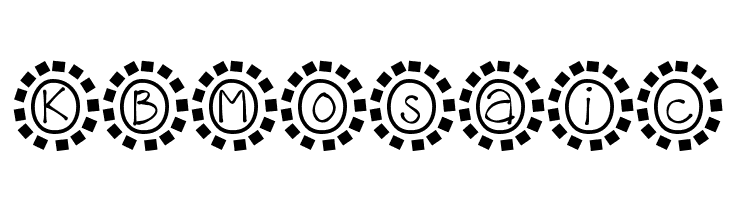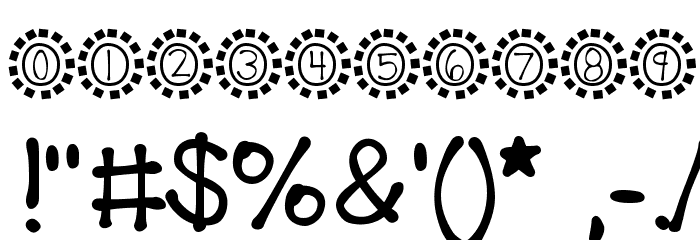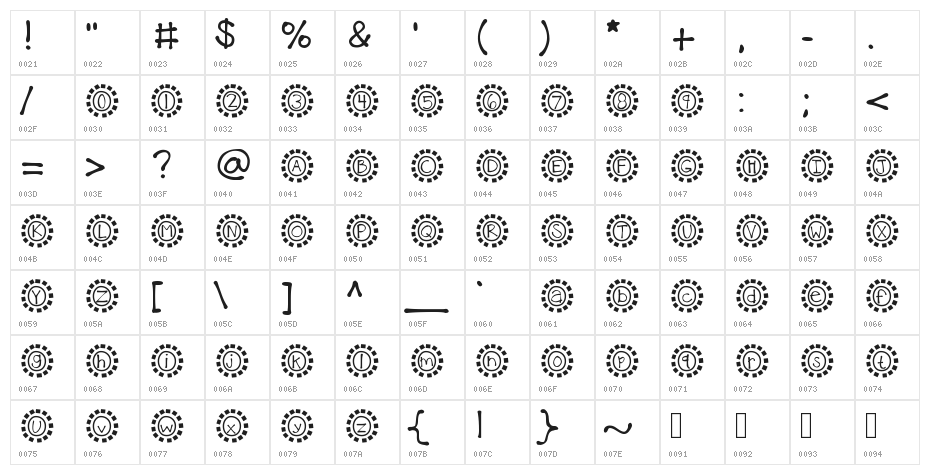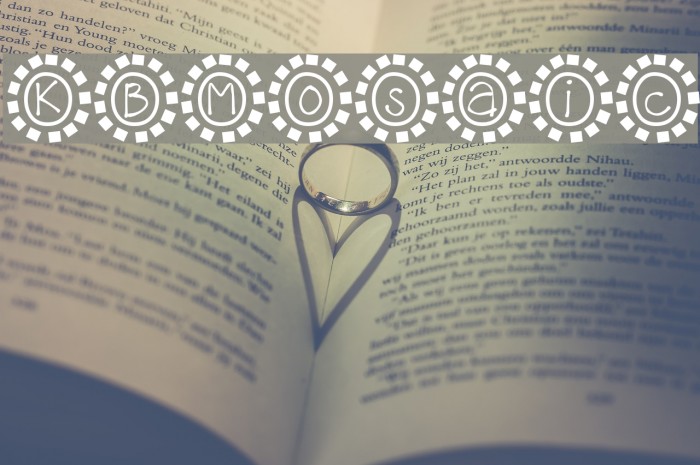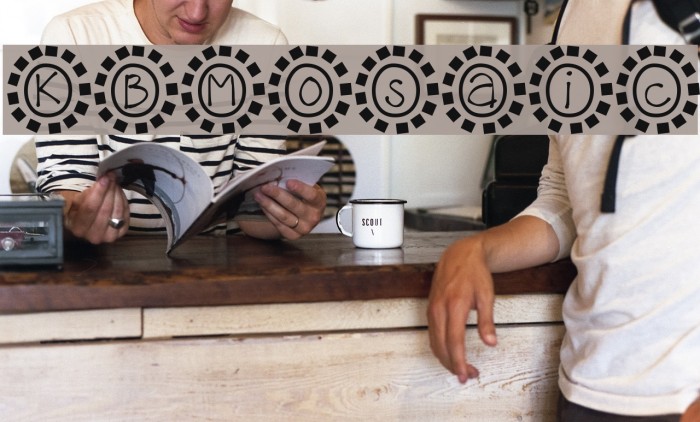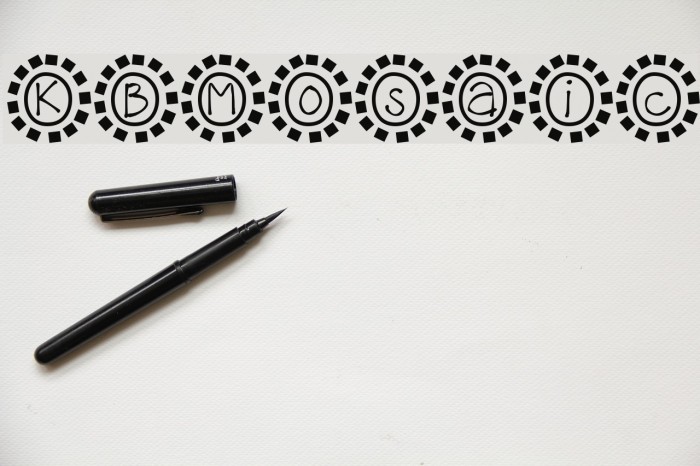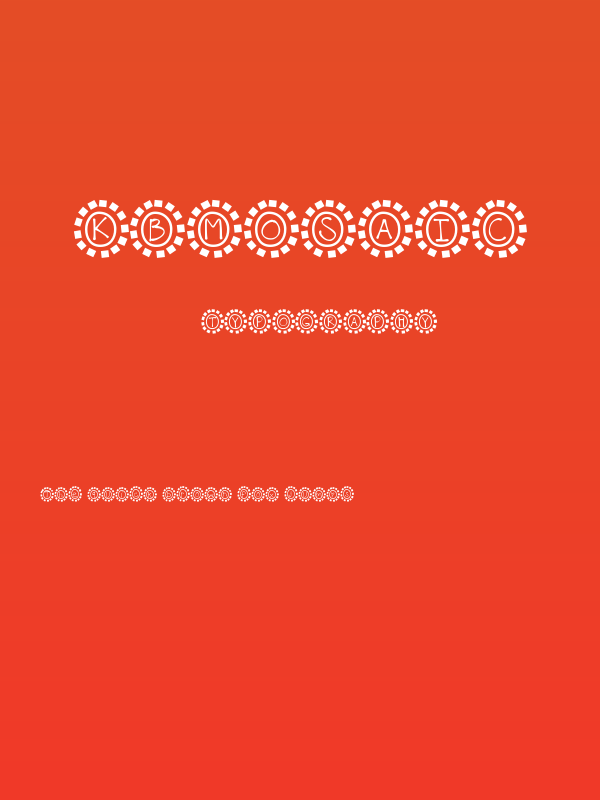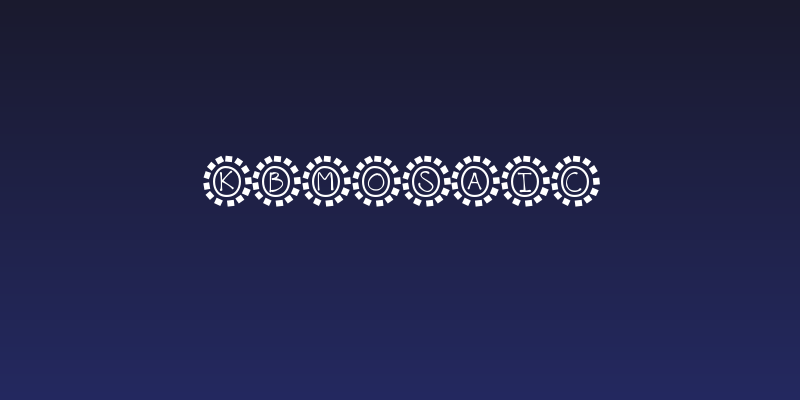
KBMosaic Font
KBMosaic Description
This decorative font features a unique design where each character is encased in a circular, mosaic-like pattern. The letters are uppercase and lowercase, with numbers and special characters also included. The style is playful and artistic, with a distinct handcrafted feel. The circular patterns surrounding each character add a layer of complexity and visual interest, making it ideal for creative projects. The font's design is consistent across all characters, providing a cohesive look that is both eye-catching and memorable.
| Use Case | Logos, Posters, Invitations |
| Proposed Projects | Ideal for creative projects such as posters, invitations, and branding materials where a playful and artistic touch is desired. |